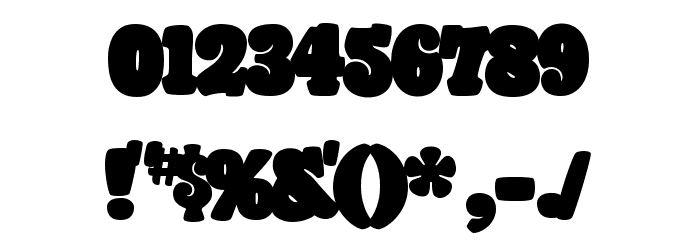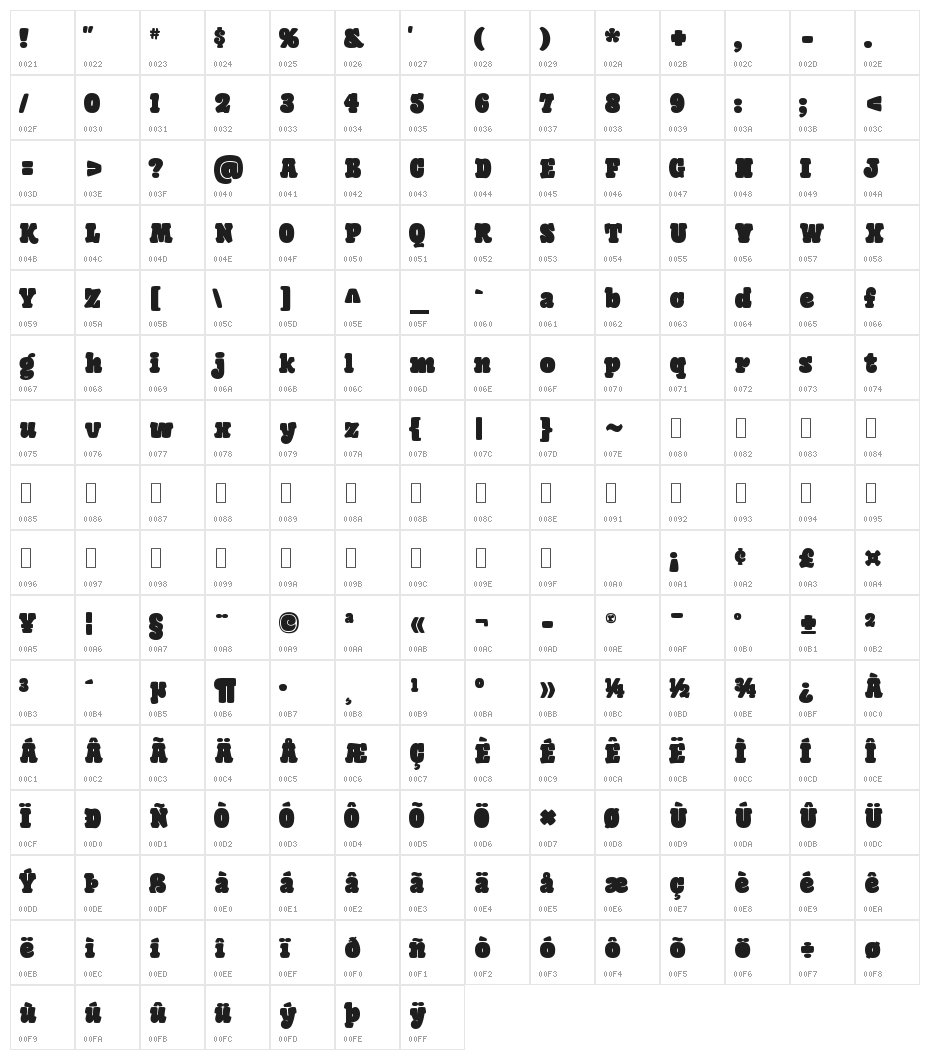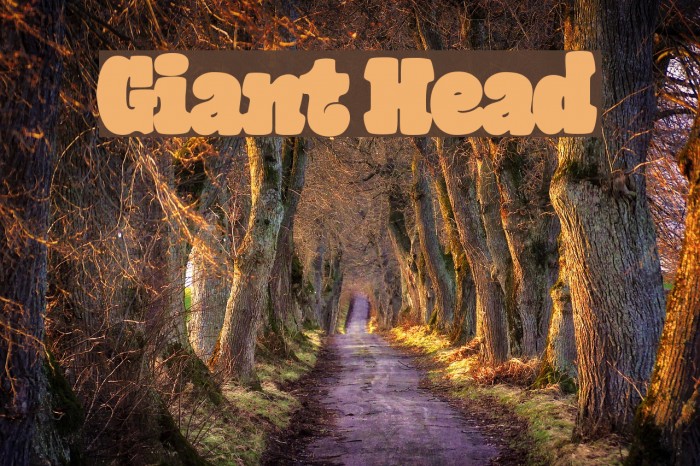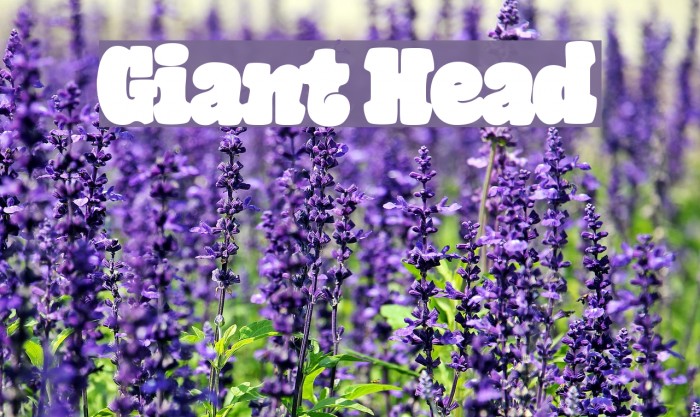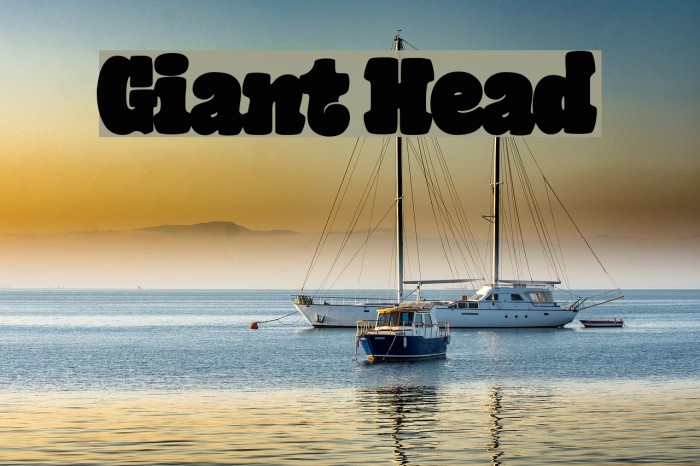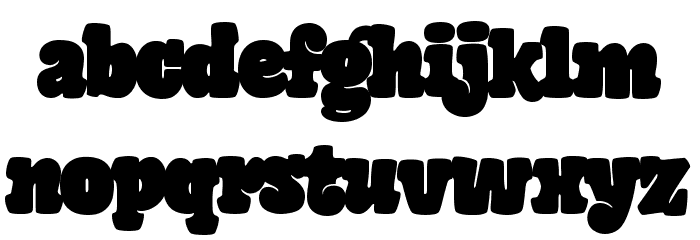
Giant Head Font
Giant Head Description
This bold and playful font features thick, rounded letters with a bubbly appearance. The characters are heavily weighted, giving them a strong presence on the page. The rounded edges and exaggerated curves create a sense of fun and whimsy, making it ideal for projects that require a lively and energetic feel. The font maintains a consistent thickness throughout, with minimal contrast between strokes. Its unique style is eye-catching and memorable, perfect for making a statement.
| Overall Style | Playful, Energetic |
| Proposed Projects | Ideal for children's books, playful branding, party invitations, and eye-catching headlines. |